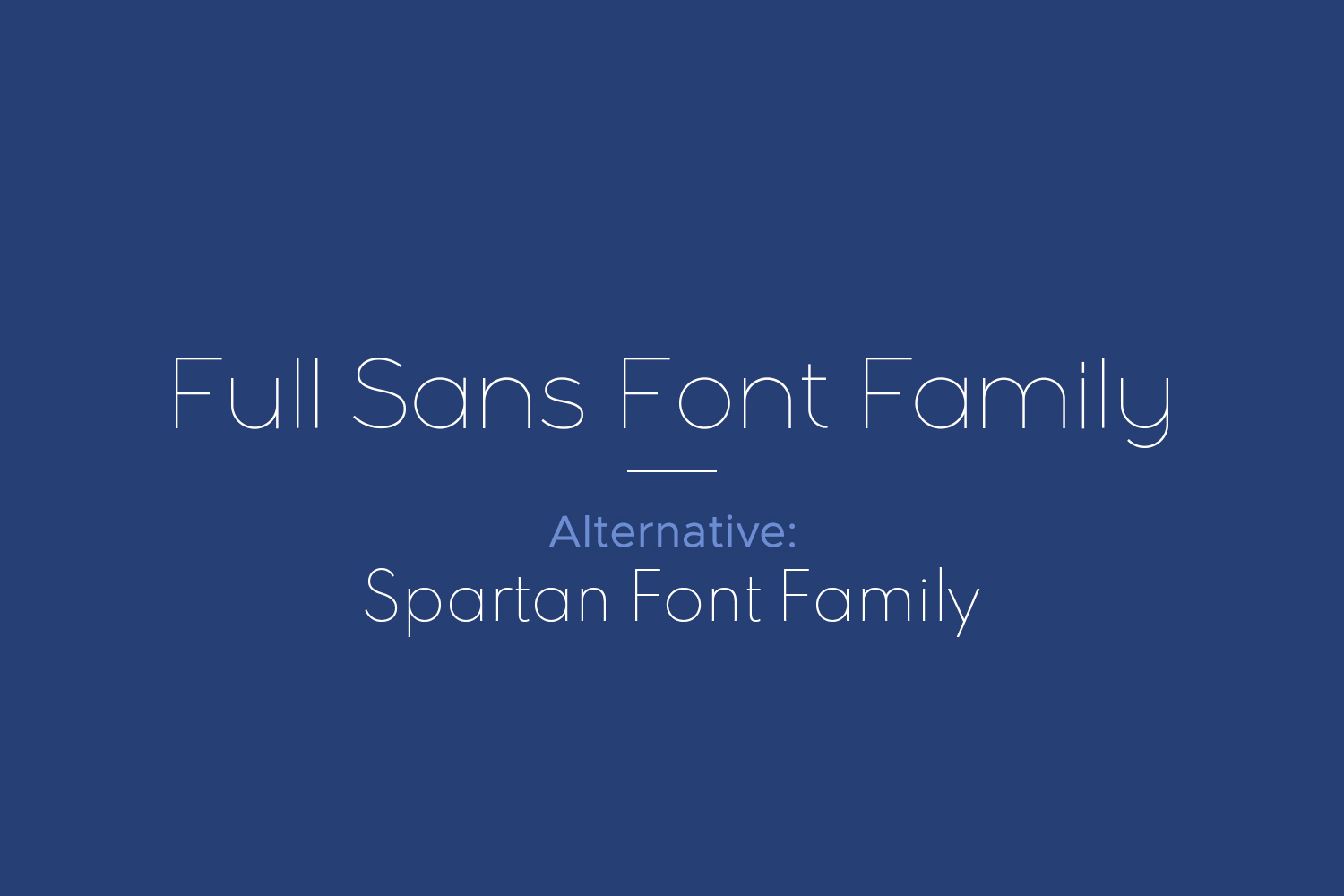
Full Sans Free Font Family is geometric sans in the tradition of Futura, Avant Garde and the like. It has a modern streak which is the result of a harmonization of width and height, especially in the lowercase letters to support legibility.
Here we are providing you free alternative font family to some outlines of Full Sans:
Full Sans LC Thin – Spartan MB Thin
Full Sans LC Light – Spartan MB Light
Full Sans LC Book – Spartan MB Regular
Full Sans LC Medium – Spartan MB Semi Bold
Full Sans LC Bold – Spartan MB Bold
There is free similar font family to some outlines of Full Sans. We tried our best to find the best matching fonts of the Full Sans Free Font Family.